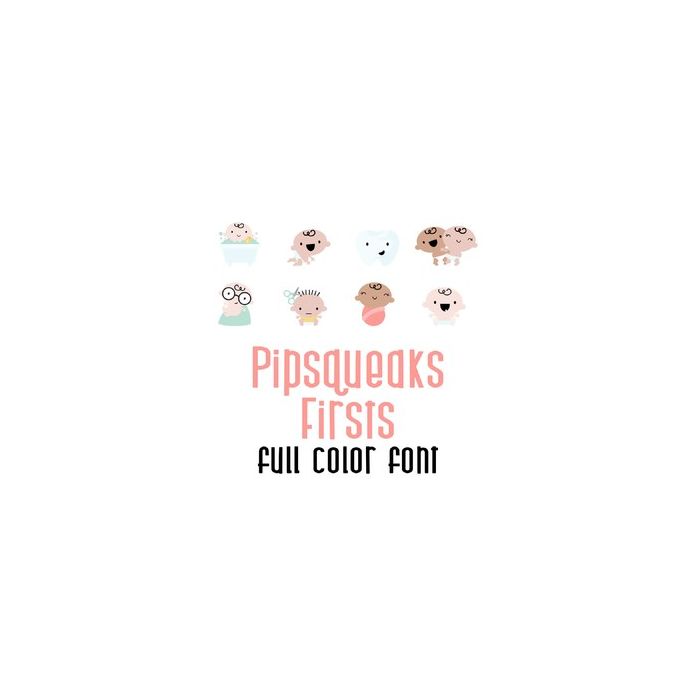
This adorable full color doodlebat font features adorable baby firsts and holidays. Perfect for cards, crafts, gifts, decor, scrap book pages, planner stickers and more!